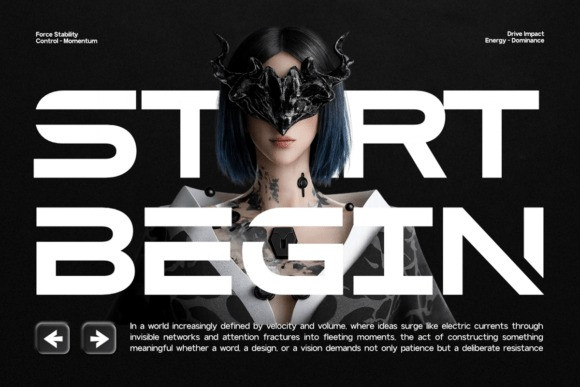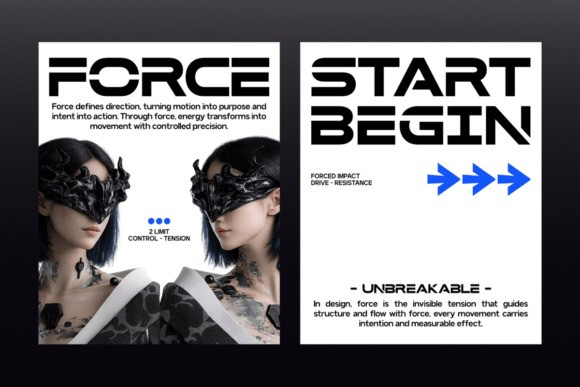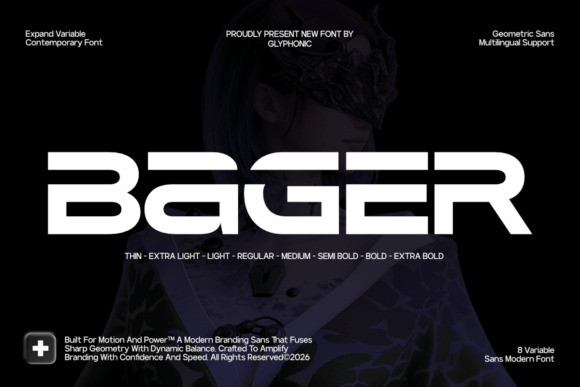
GC Bager Font
GC Bager Font a contemporary geometric sans-serif designed for high-performance branding. Built for motion and power, this typeface features sharp, wide-proportioned letterforms that command attention with their architectural stability and dynamic balance. Bager offers incredible versatility through its 8 variable weights—ranging from a delicate Thin to a commanding Extra Bold—allowing for seamless transition between minimalist elegance and high-impact headers. Its clean, futuristic aesthetic makes it an exceptional choice for automotive branding, tech-focused editorial layouts, sports marketing, and modern cinematic titles.
Whether you are designing for digital interfaces or large-scale physical media, Bager delivers a sense of confident speed and cutting-edge sophistication to your visual identity.